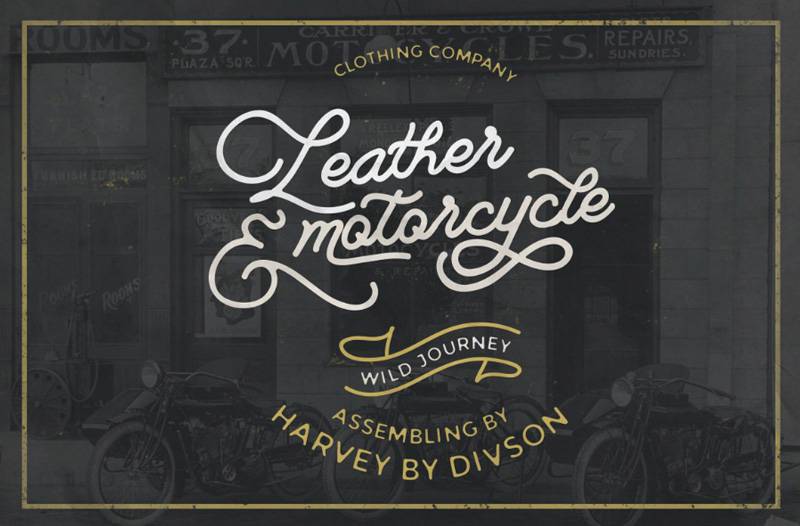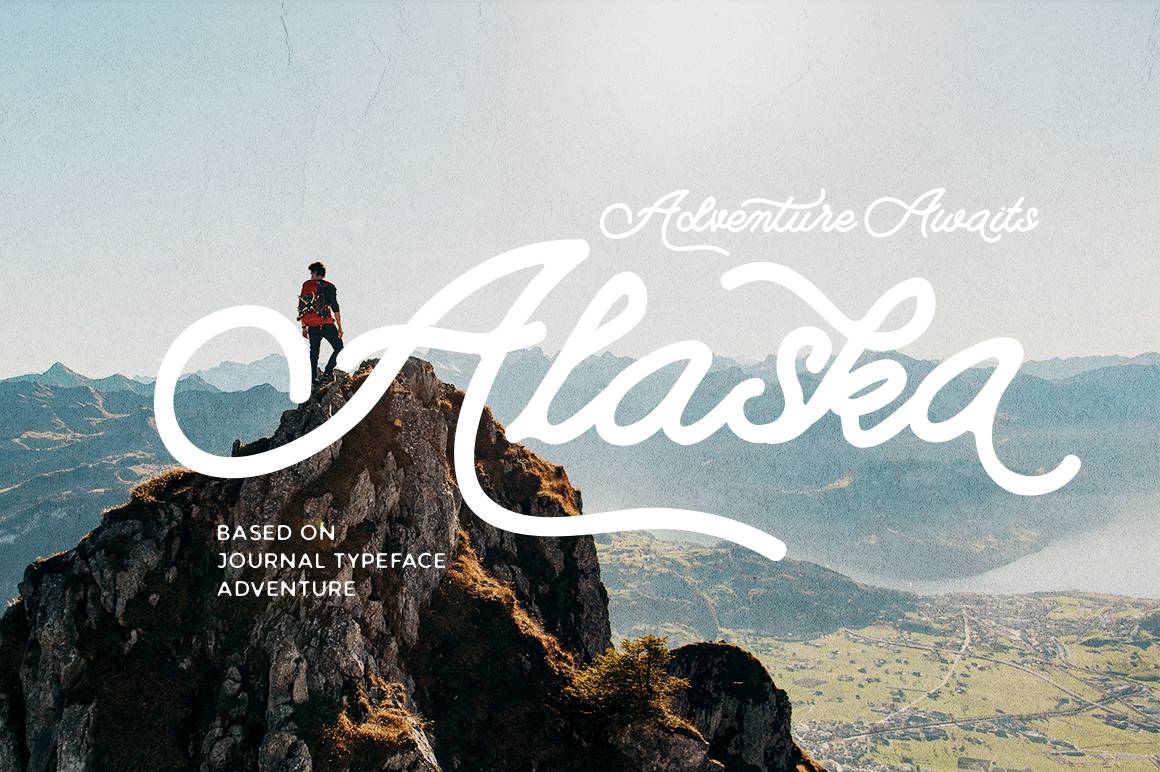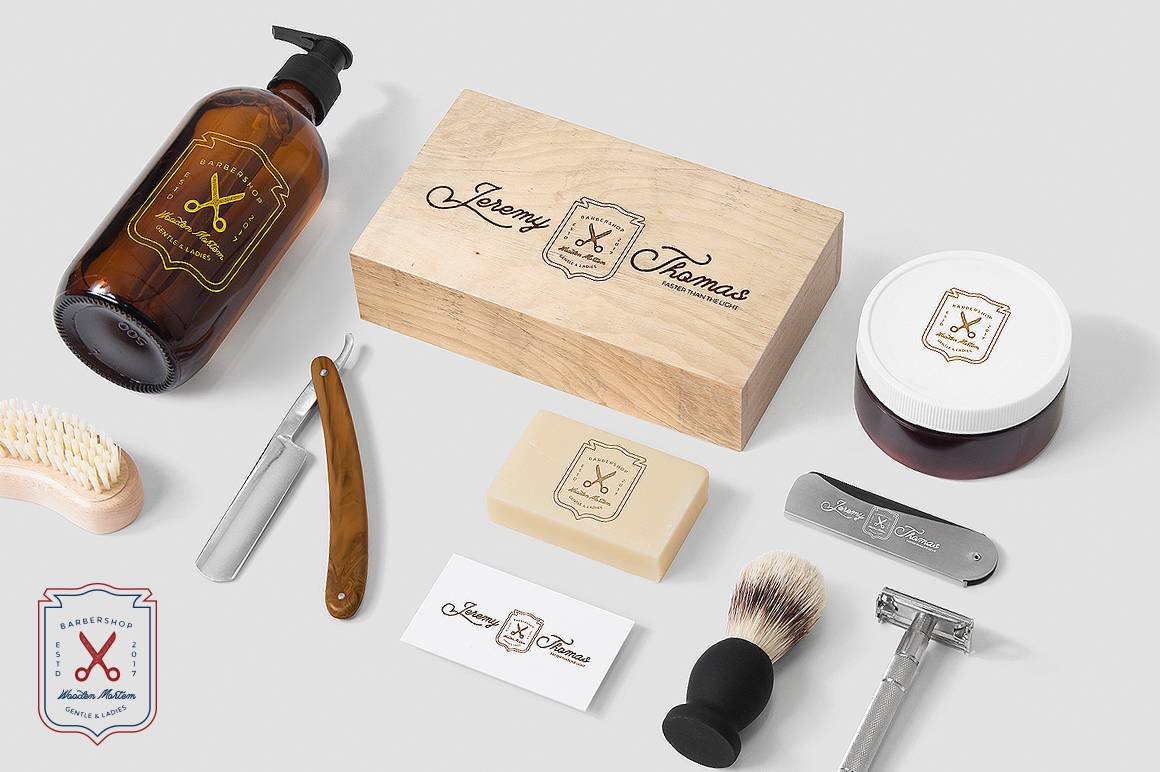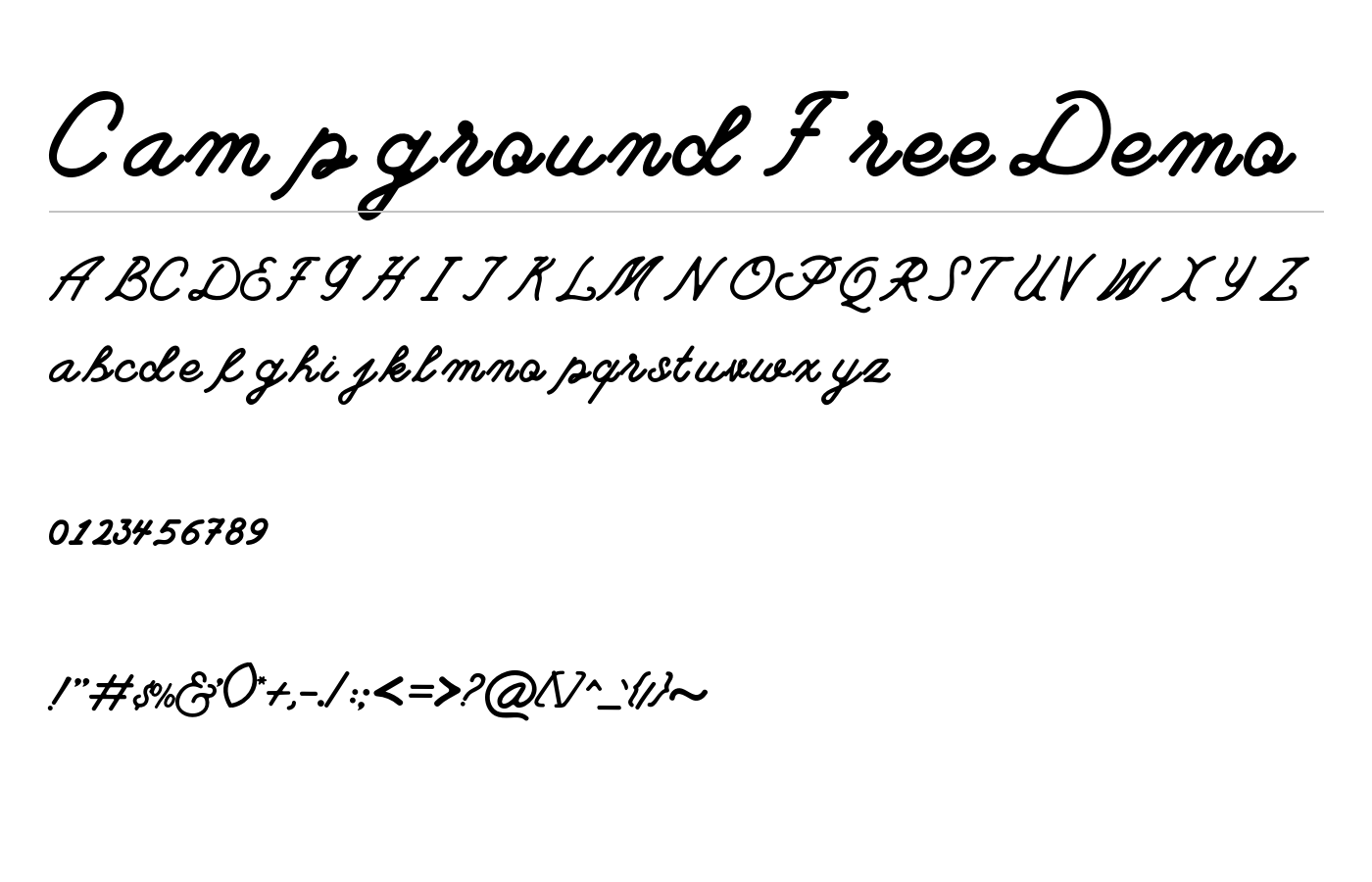
Campground Monoline Script is a friendly and elegant handwritten font with smooth, consistent strokes that give it a clean and approachable feel. Its monoline style, combined with cursive letterforms and slightly slanted italics, makes it ideal for casual branding, invitations, or logos where a personal yet refined touch is desired. This font works well in both digital and print settings, lending warmth and personality without sacrificing readability.
Campground Monoline Script
About Campground Monoline Script
| Font family | Campground Monoline Script |
| Designer | ramandhani |